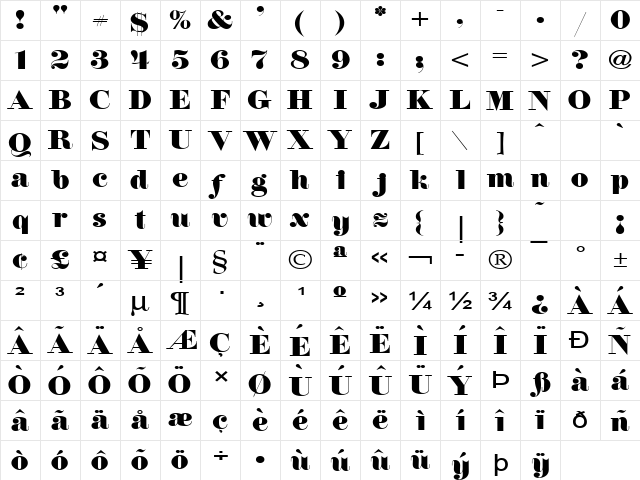
Floral Wide Normal
Design Context for Floral Wide Typeface
Floral Wide is a composed and adaptable typeface that performs quietly and consistently across a wide range of design contexts.